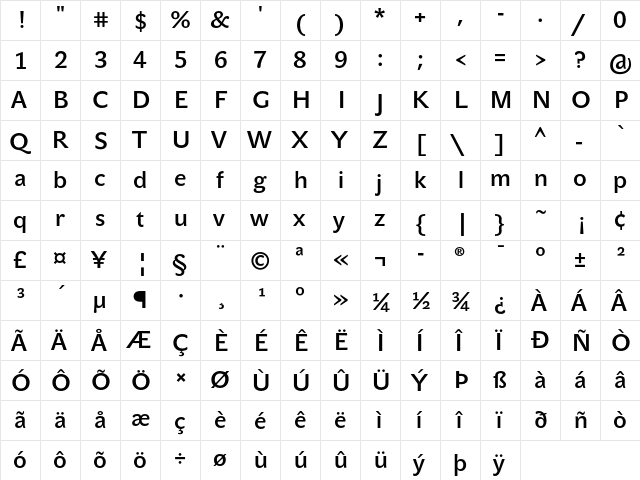
JohnSans Medium Pro Regular
| Designer | Frantisek Storm |
Design Context for JohnSans Medium Pro Typeface
JohnSans Medium Pro offers clean, dependable letterforms without strong stylistic allegiance, making it a practical choice for designers who need flexibility.